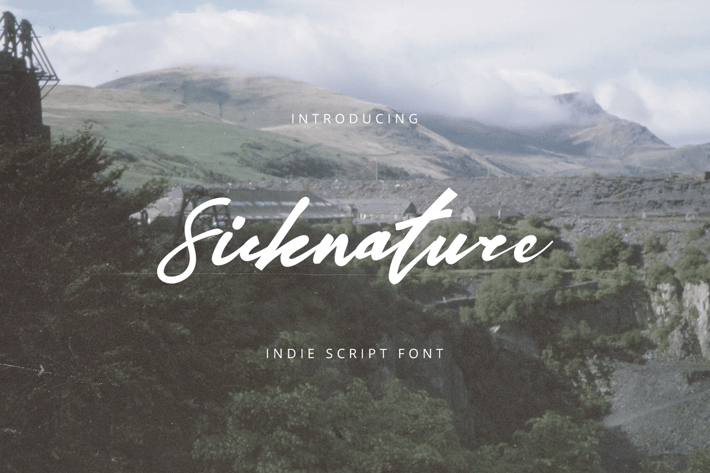
Sicknature Indie Script Font
Sicknature Indie Script font, is our new font based on nature, and suitable for mockup or any work.
Great for
Sticker, Invitation Card, Brochure, etc.